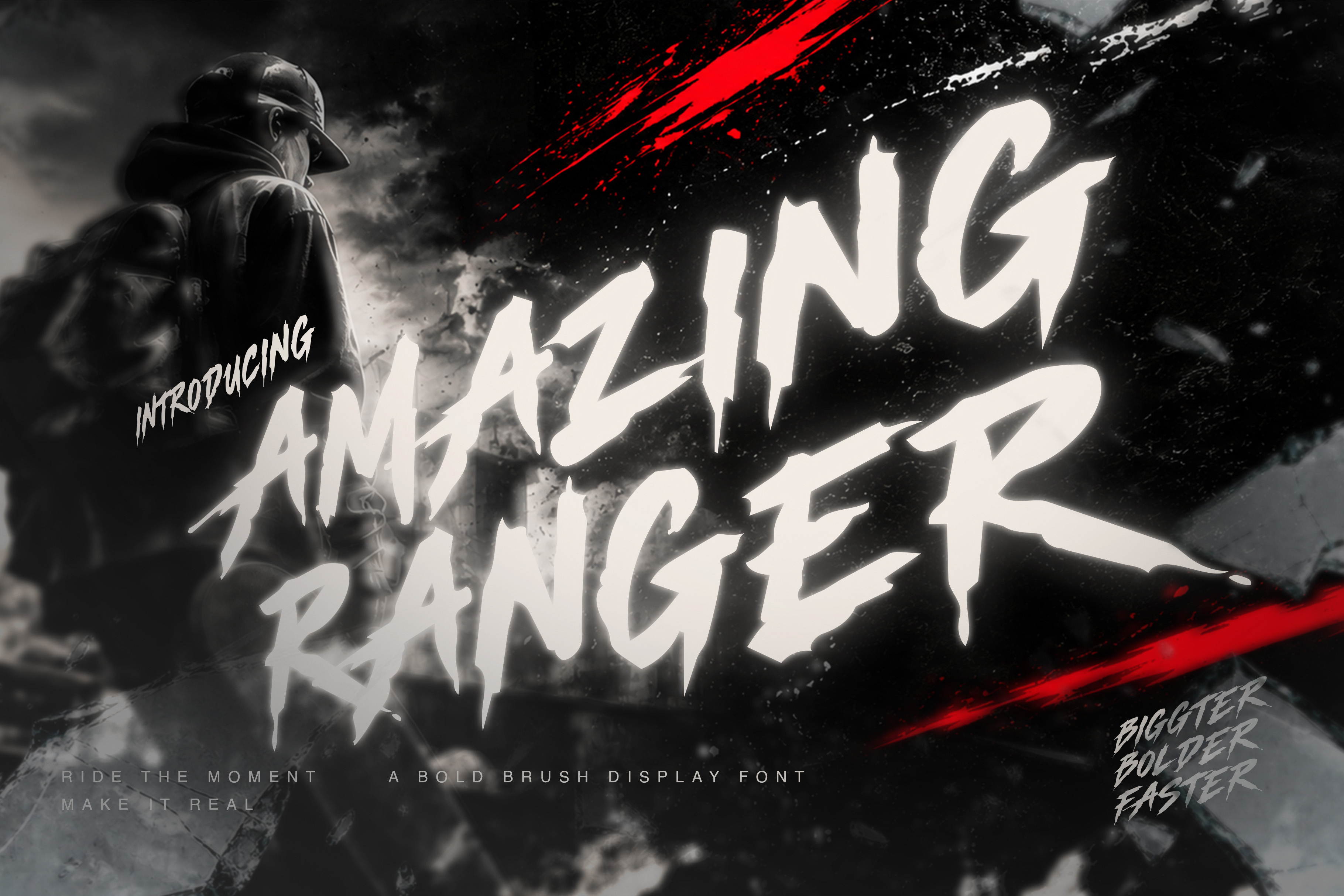
AMAZING RANGER – Brush Display Font
AMAZING RANGER – Bold Brush Display Font
Meet Amazing Ranger, a powerful handcrafted brush display font designed to bring energy, movement, attitude, and raw visual impact to your creative projects.
Inspired by the intensity of street culture, extreme sports, racing, adventure, action graphics, rock aesthetics, and modern urban design, Amazing Ranger features bold brush strokes, sharp details, irregular edges, and an expressive handmade appearance.
Its aggressive yet highly expressive character makes it perfect for creating typography that immediately grabs attention.
Streetwear & clothing brands
T-shirt designs
Sports branding
Racing graphics
Motorsport designs
Esports & gaming
Adventure projects
Action posters
Music artwork
Rock & punk designs
Album covers
Concert posters
Event graphics
Logo & logotype design
Brand identity
Advertising
YouTube thumbnails
Stickers & decals
Posters & flyers
Packaging
Editorial headlines
Automotive graphics
Amazing Ranger works particularly well for large headlines, logos, posters, apparel graphics, promotional artwork, sports identities, and bold branding projects where strong typography is the main visual element.
The rough brush character creates an authentic hand-painted and energetic appearance, while the strong letterforms help maintain visual presence across different applications.
Make Your Typography Stand Out
Whether you're designing a streetwear collection, racing team identity, sports poster, gaming brand, music artwork, or action-themed campaign, Amazing Ranger is designed to give your typography a strong and fearless personality.
Amazing Ranger — Bold strokes. Raw energy. Maximum impact.